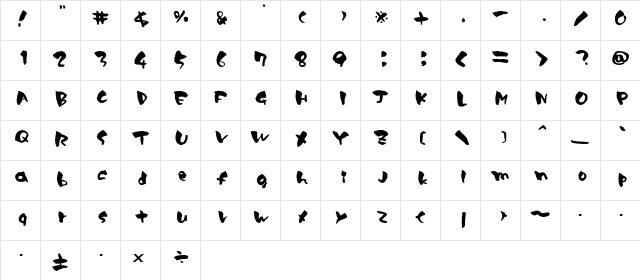
YAKITORI Regular
Design Context for YAKITORI Typeface
YAKITORI is a composed and adaptable typeface that performs quietly and consistently across a wide range of design contexts.